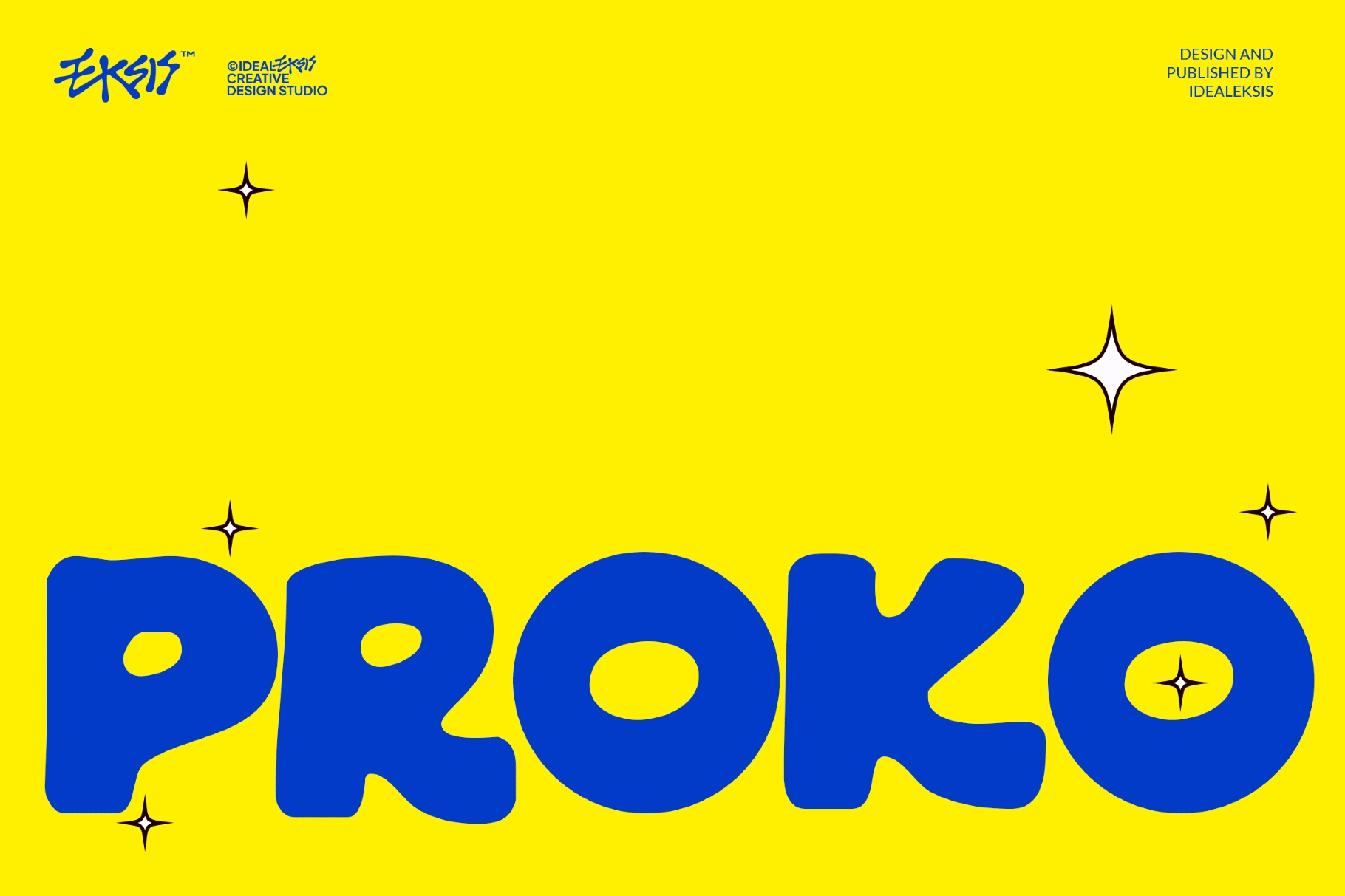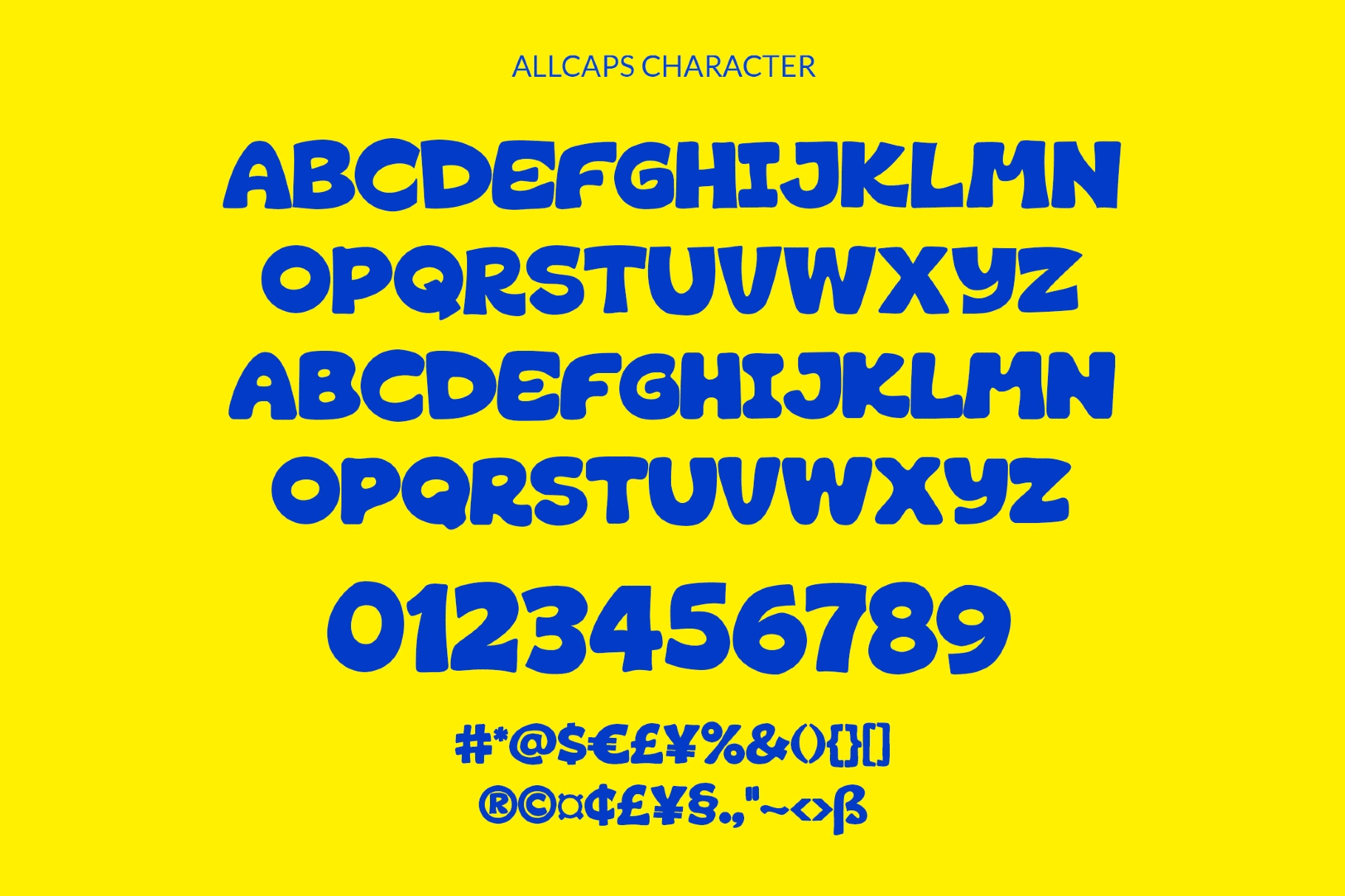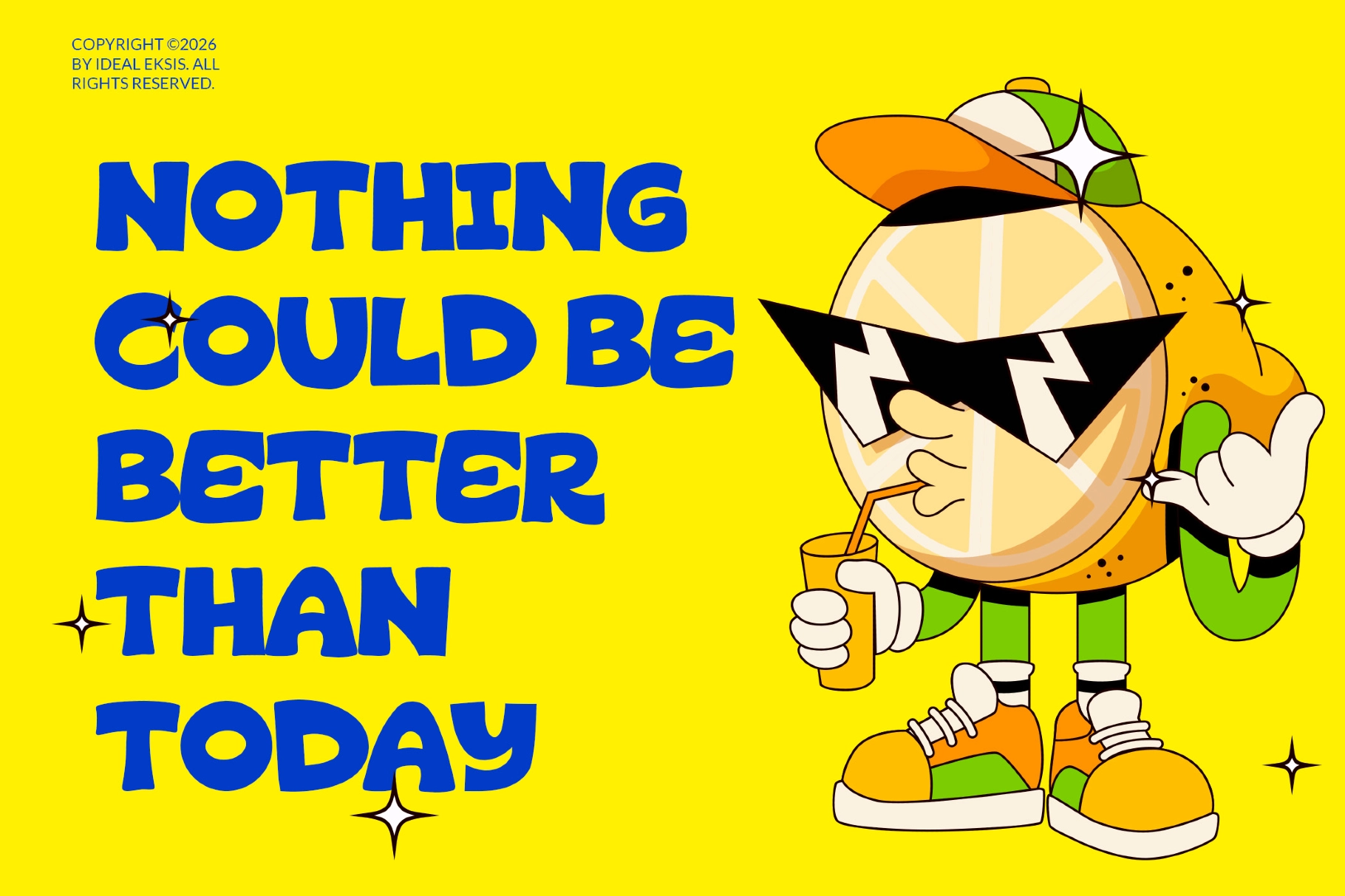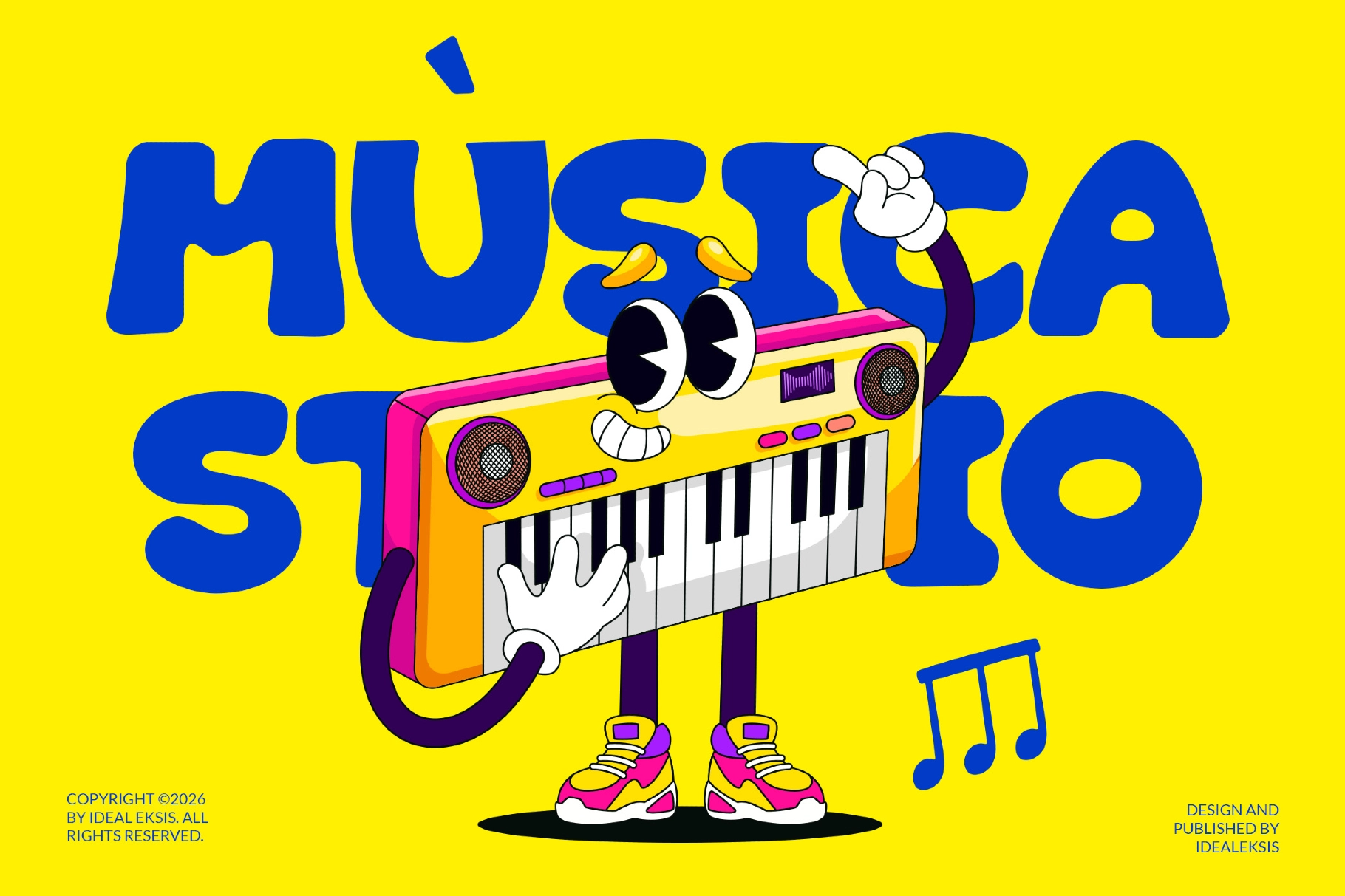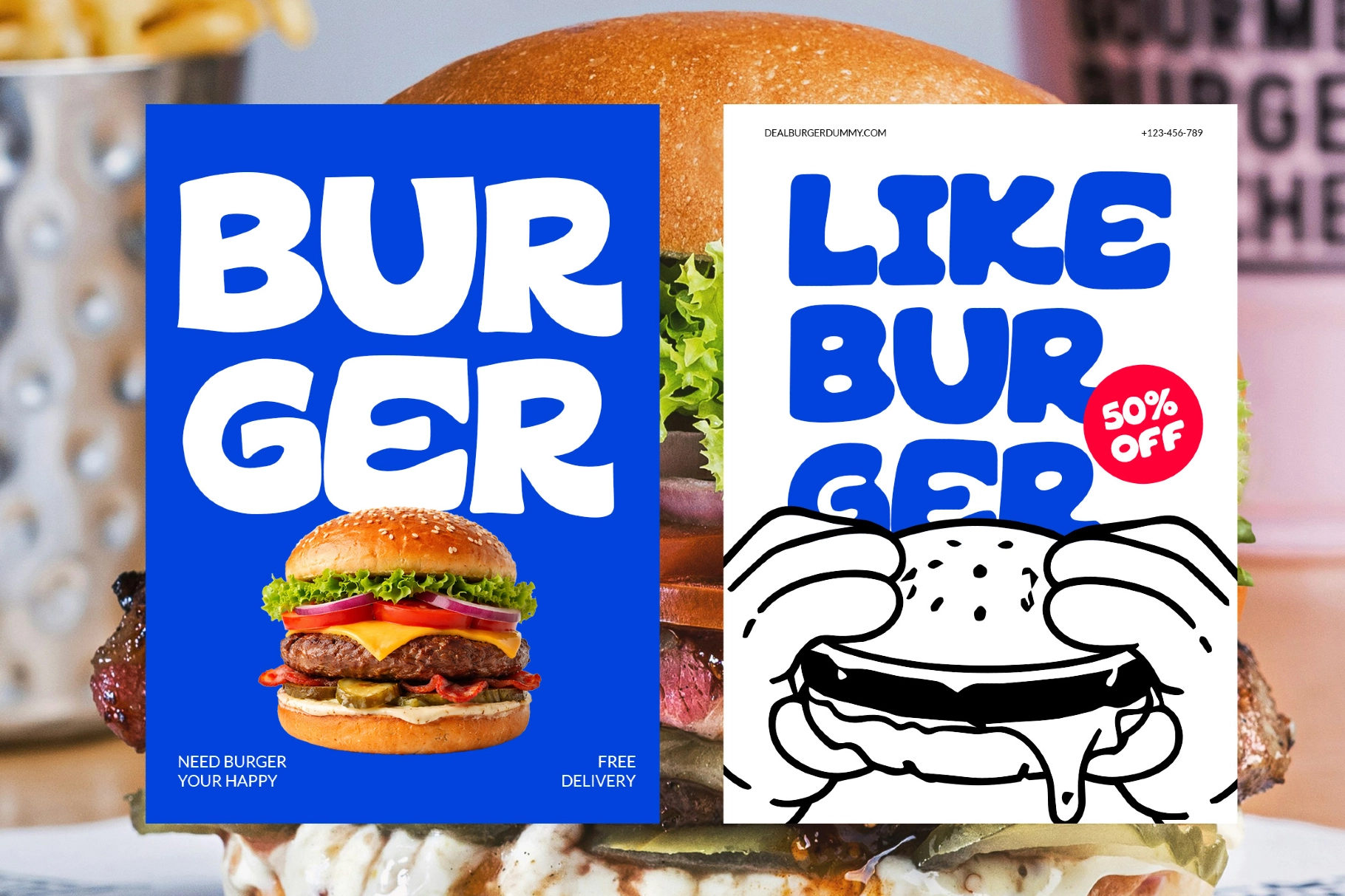
Proko - Playful Display Font
A chunky playful display font with soft, blobby letterforms and a loud graphic attitude. Its all-caps shapes have a hand-cut wobble, oversized curves, and punchy spacing that make every word look snackable — yes, even the punctuation.
Proko is a strong fit for bakery branding, café menus, burger posters, food truck signage, donut shop packaging, drink labels, music event graphics, kids’ products, sticker designs, social media promos, recipe graphics, and bright mascot-led campaigns. It is bold enough for big headlines and friendly enough for casual brands that prefer fun over fuss.
• All-caps characters
• Numbers & punctuation